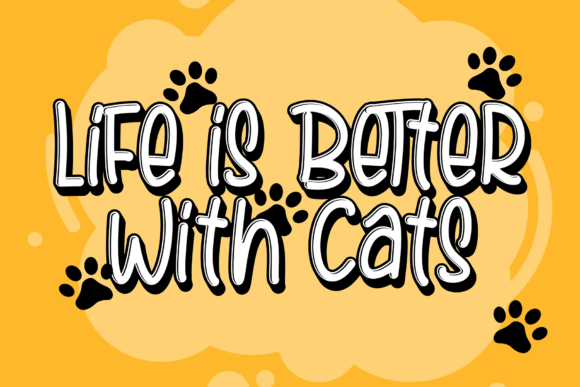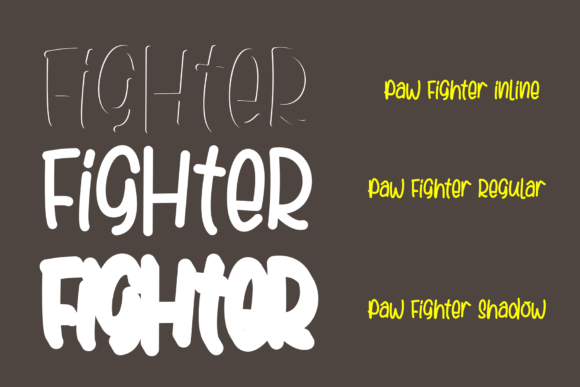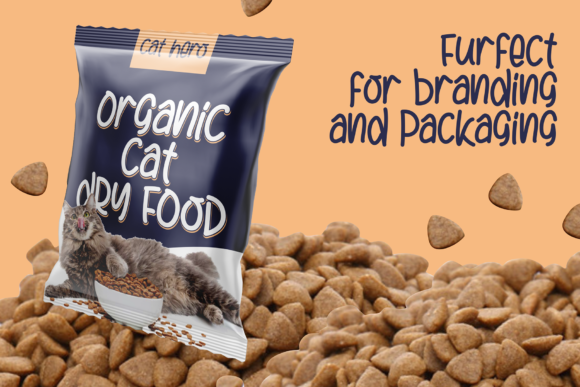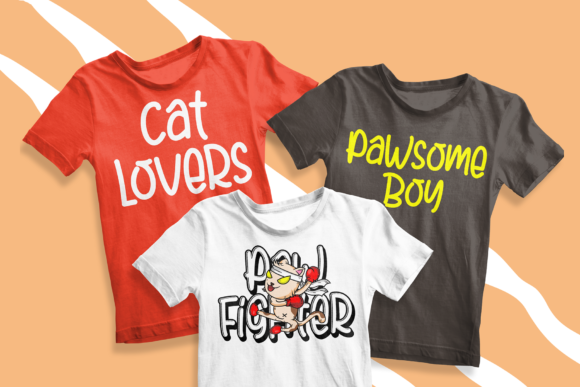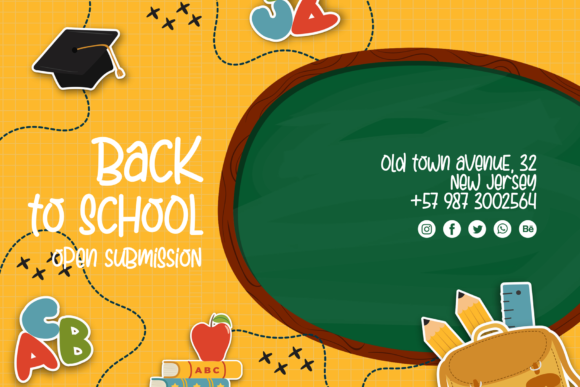
Introduction to Paw Fighter Font
Have you ever stared at a blank page, eager to bring a creative project to life, only to be stuck for the perfect font to capture the essence of your idea? That’s exactly what happened to me last week, and that’s when I stumbled upon the Paw Fighter Font – a game-changing, handwritten display font that’s been making waves in the design community.
With its dynamic look and unique charm, the Paw Fighter Font is an absolute treasure for designers. Not only does it offer a transparent background, making it easy to layer and customize, but its high-quality design also ensures that it stands out from the crowd. Whether you’re working on a personal project or a commercial design, the Paw Fighter Font is a valuable design resource that’s sure to elevate your work.
Key Features of Paw Fighter Font
- High-quality design resource with a unique and playful style, perfect for creative projects.
- Features a transparent background, making it easy to layer and combine with other design elements.
- Includes a range of characters and symbols, including uppercase and lowercase letters, numbers, and punctuation.
- Can be used for a variety of creative projects, including logos, graphics, and typography-based designs.
Honest Review: Paw Fighter Font
I recently stumbled upon the Paw Fighter Font and was immediately drawn to its unique and playful style. As a designer, I appreciate high quality design resources like this font, which can add a creative twist to any project.
Here’s what I like about the Paw Fighter Font ✨:
- Unique and quirky design that’s perfect for a creative project
- Supports transparent background, allowing for seamless integration into any design
However, I did encounter a few limitations ⚠️:
- Not ideal for professional or corporate designs, as it may come across as too playful
- Limited font sizes and styles, which may limit its versatility
Overall, I’m impressed with the Paw Fighter Font and think it’s a great addition to any designer’s toolkit. While it may have its limitations, it’s a fun and creative resource that’s perfect for a unique project.
Common Use Cases for Paw Fighter Font
The Paw Fighter Font is a versatile design resource that can be used in a variety of creative projects, including logos, business cards, and social media graphics. Its high quality and transparent background make it a great choice for designers looking for a unique and effective design solution.
Alternatives to Paw Fighter Font
Q: Is the Paw Fighter Font a high-quality design resource?
Yes, the Paw Fighter Font is a high-quality design resource that is perfect for creative projects. The font is designed to be bold, playful, and eye-catching, making it ideal for projects that require a fun and energetic vibe. With its high-quality design and advanced font features, the Paw Fighter Font is a valuable addition to any designer’s toolkit.